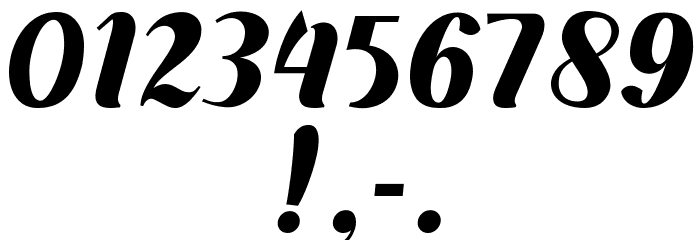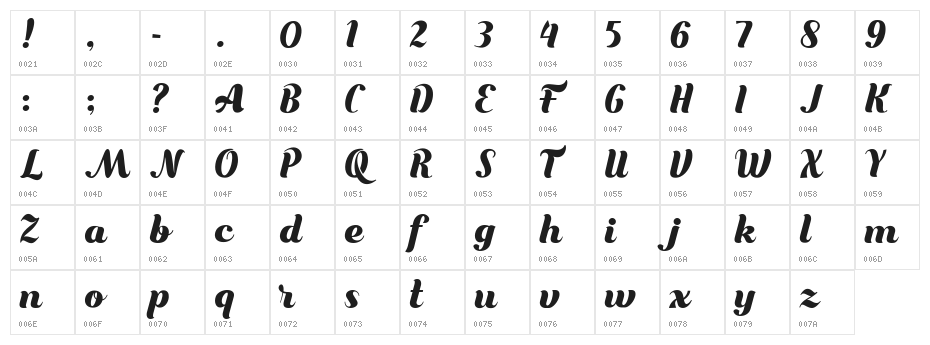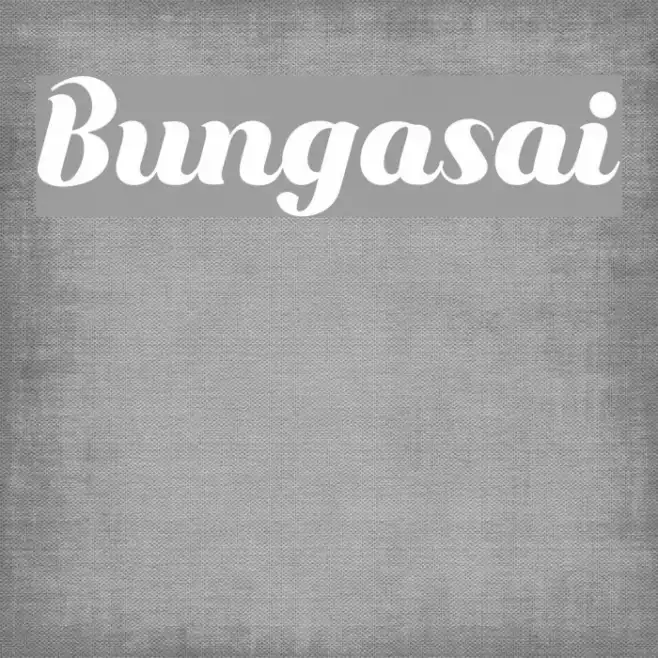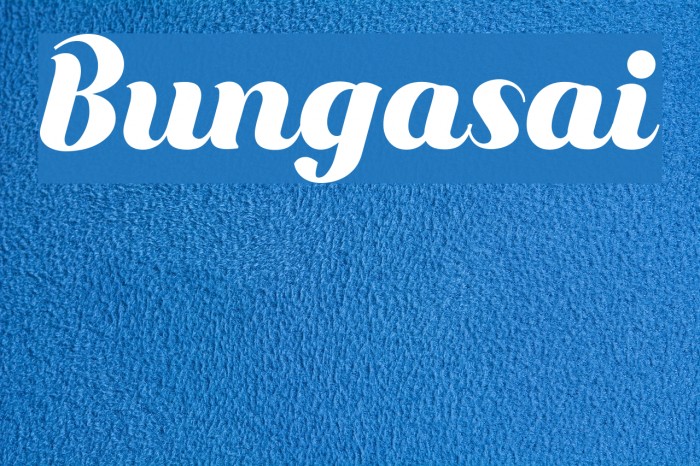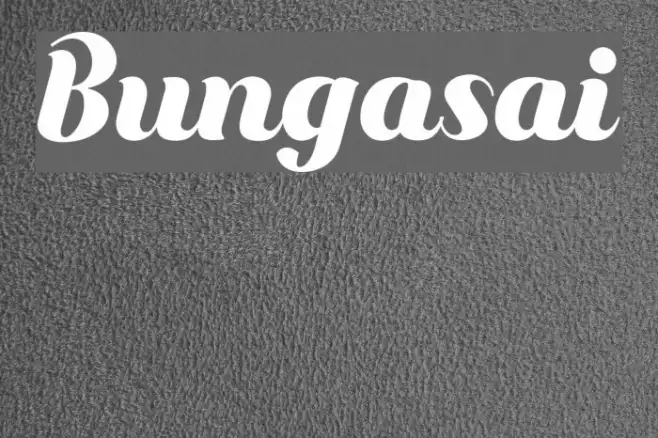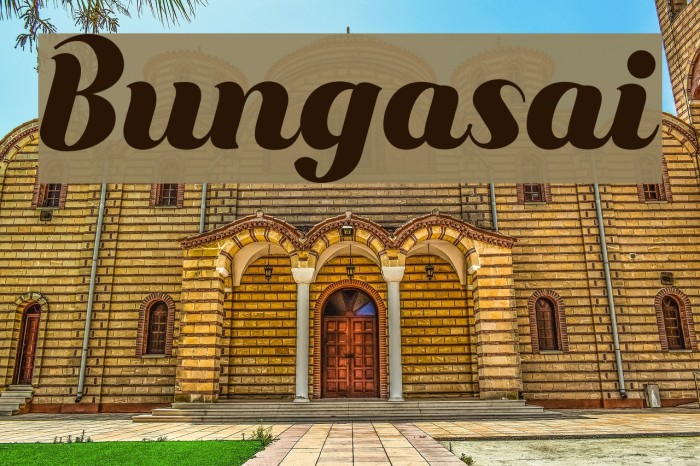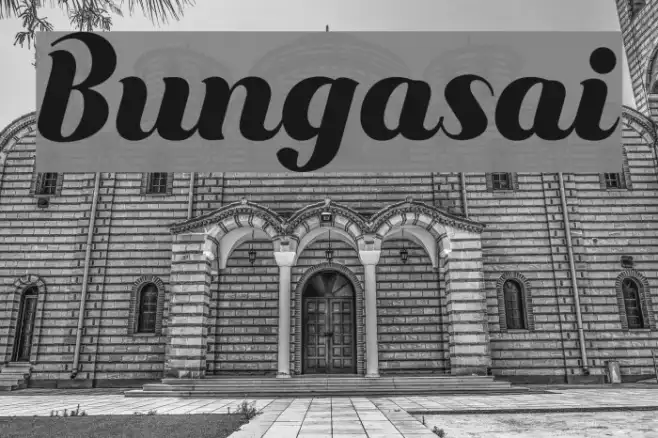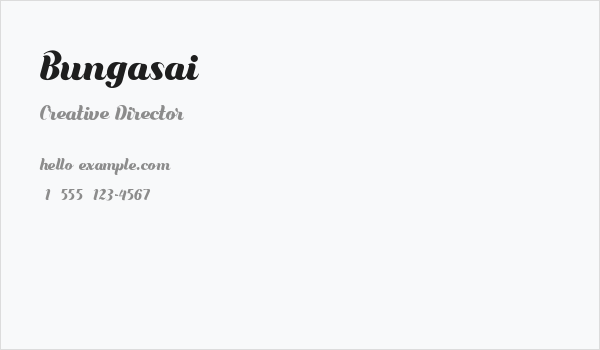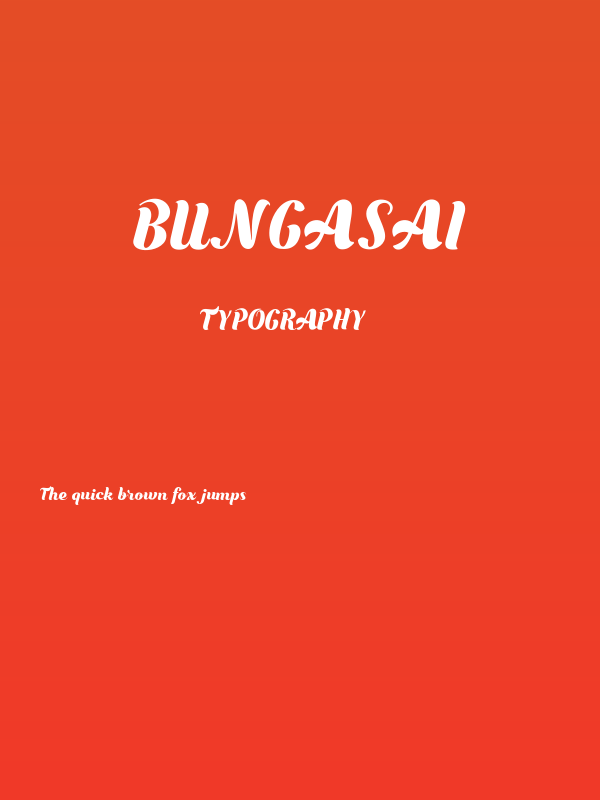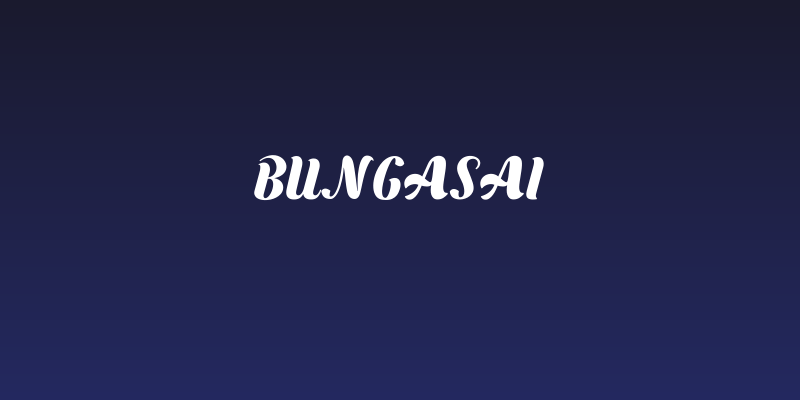
Bungasai Font
Bungasai Description
This font features a bold and flowing script style, characterized by its elegant curves and dynamic strokes. The uppercase letters are prominent and exude a sense of grandeur, while the lowercase letters maintain a consistent fluidity that complements the overall design. The numbers are equally bold, ensuring readability and style. Special characters are designed with the same attention to detail, making them stand out. The font's high contrast between thick and thin strokes adds to its dramatic appearance, making it suitable for eye-catching designs.